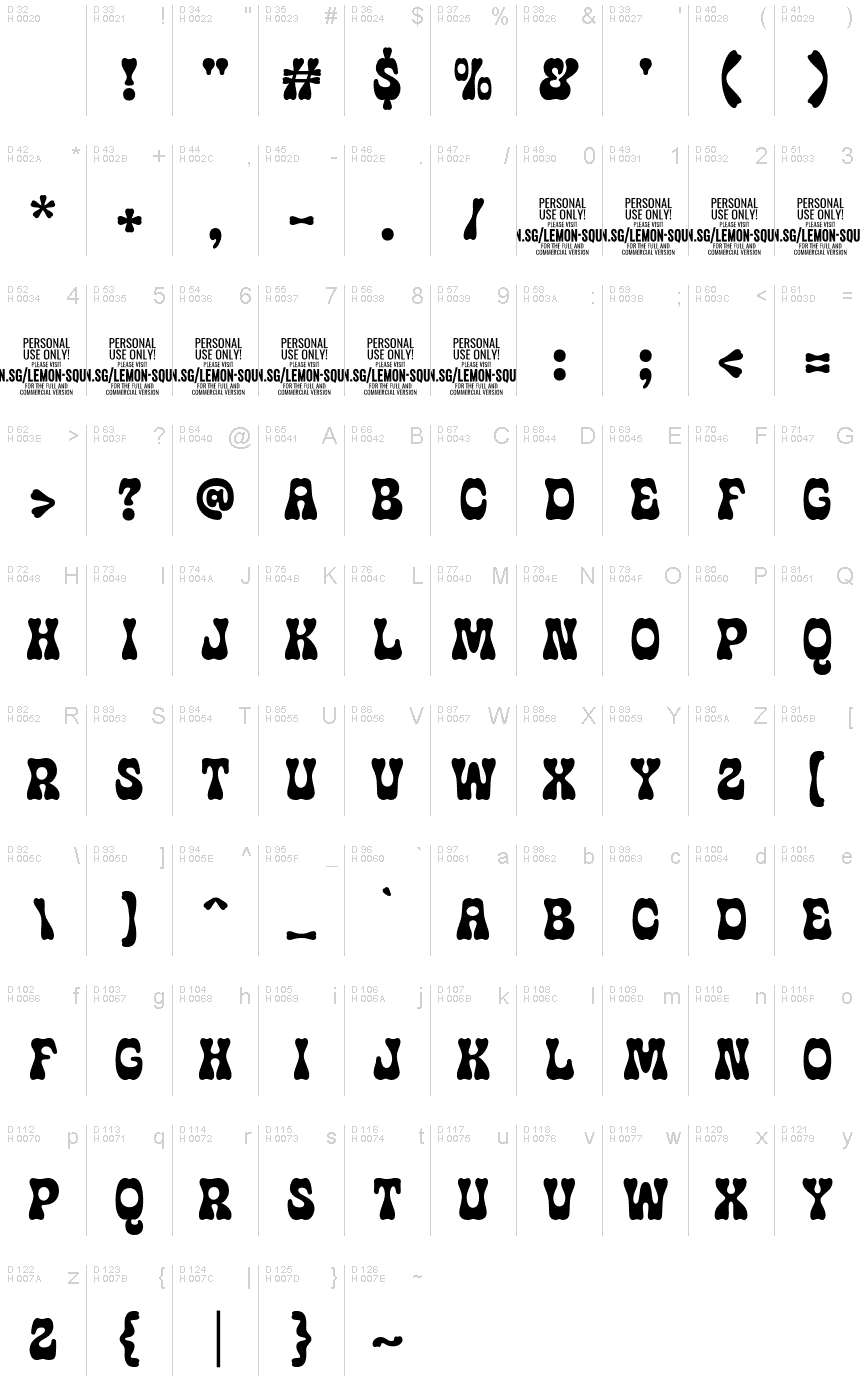
Lemon Squish PERSONAL USE Regular
Lemon Squish, the groovy and bold display font created by Mans Greback, is perfect for projects that need a little extra funk. Its playful curves and thick lines make it ideal for anything from retro-inspired posters to modern-day logos. The unique style of Lemon Squish will add personality to your designs while still maintaining readability. Use it for album covers, t-shirt designs, or even website headers. This semi-bold typeface is sure to make your project stand out and leave a lasting impression on anyone who sees it.